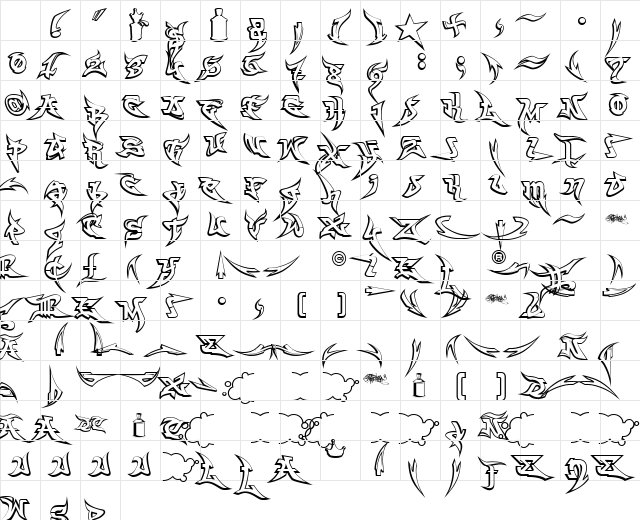
Complete WildStyle-Outline Regular glyph index. Displaying only characters natively supported by WildStyle-Outline Regular font.
WildStyle-Outline is built around its visual character rather than neutral utility - its distinctive forms are designed to make an impression at display sizes.
Font Pairing: Pair with a clean neutral sans-serif for body copy to let WildStyle-Outline's character lead without overwhelming the composition.
Pro Tip: Use WildStyle-Outline exclusively at display sizes - it was designed to be seen, not read at length. Let a neutral companion handle body copy.